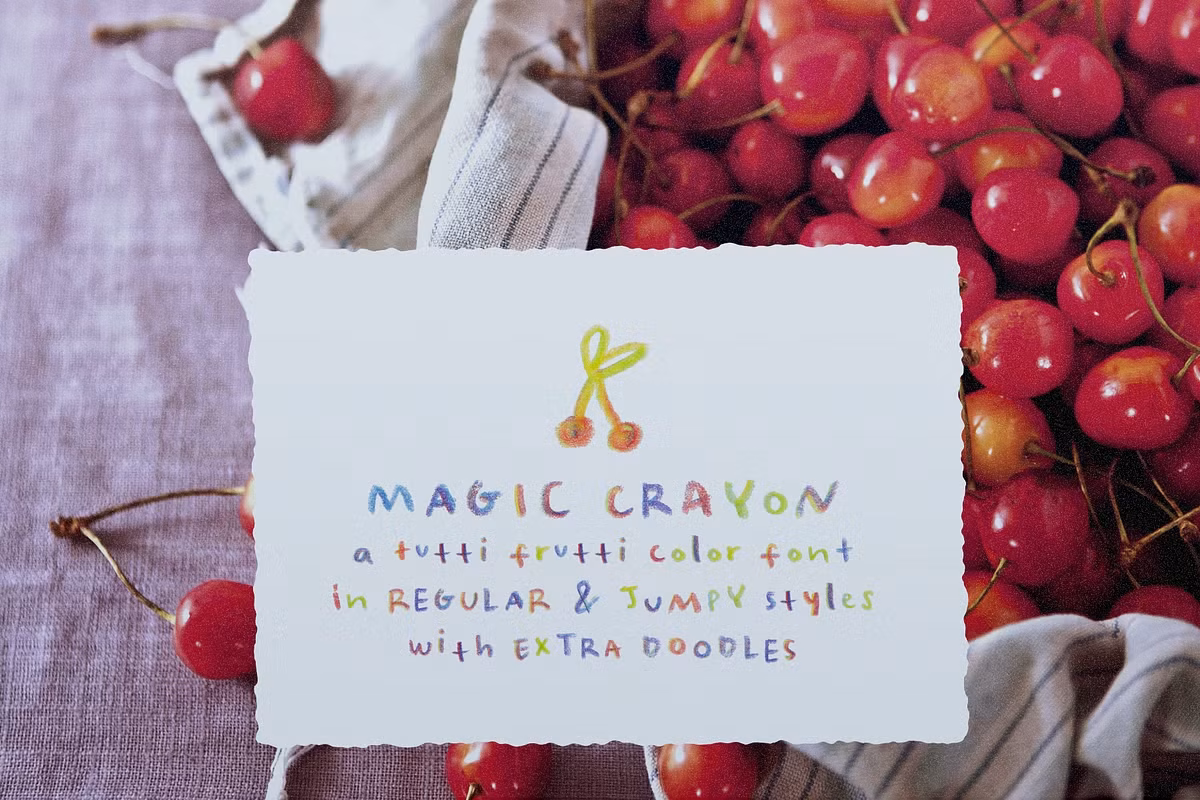
Add a playful, colorful touch to your designs with Magic Crayon SVG Color Font Free Download. This vibrant SVG font mimics the look of hand-drawn crayon strokes, making it perfect for children’s projects, educational materials, greeting cards, social media graphics, and anything that needs a fun, artistic vibe.
Magic Crayon features colorful, textured letterforms that bring a sense of creativity and joy to your typography. It includes uppercase and lowercase letters, numerals, punctuation, and multilingual support, giving you the flexibility to experiment with colorful and whimsical layouts.